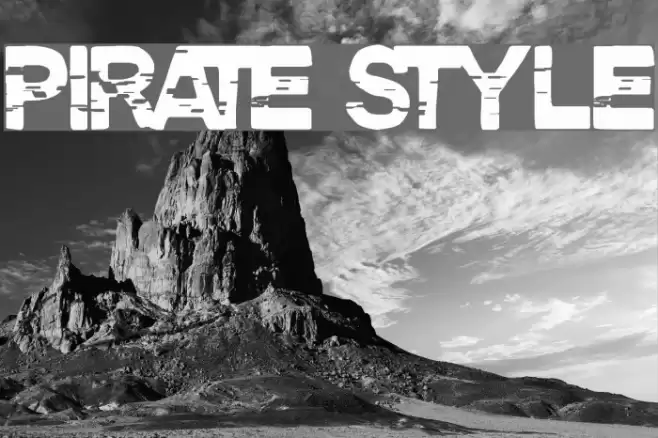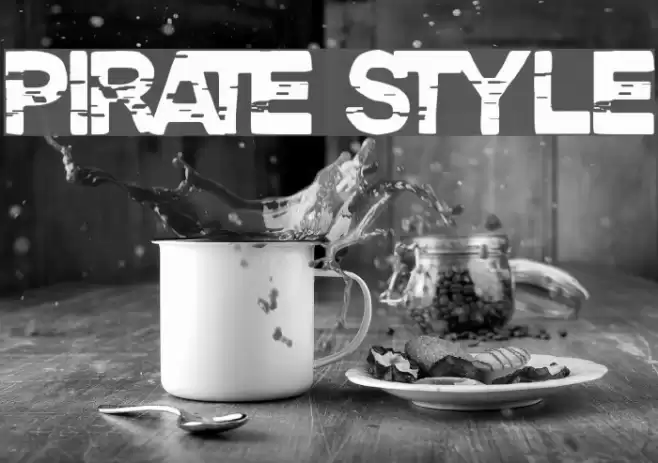
Pirate Style Font
Pirate Style Description
This font features a bold and distressed style, reminiscent of pirate themes and rugged maritime aesthetics. The characters are heavily textured with a worn, weathered appearance, giving them a unique, adventurous look. The uppercase and lowercase letters maintain a consistent boldness, while the numbers and special characters follow the same distressed pattern. This font is ideal for creating a sense of mystery and adventure, perfect for themed events or branding that requires a touch of the high seas.
A bold, distressed font with a pirate-themed, adventurous style from Distorted Eroded fonts.
- Proposed Projects: Ideal for pirate-themed events, adventure branding, escape room designs, or any project requiring a rugged, maritime aesthetic.
- Use Case: Headlines, Logos, Themed Events